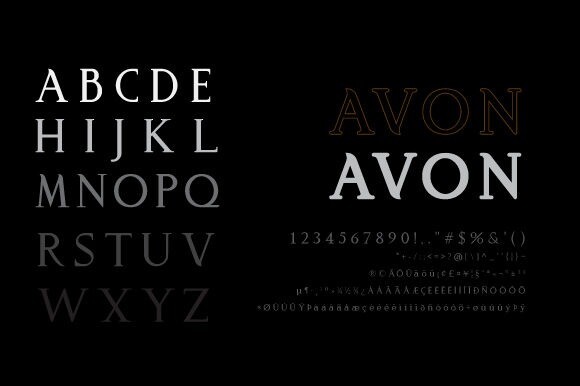
Avon Serif Font
Designer: VNM Creative Studio
Avon Serif Font is stand-out serif font family. It’s guaranteed to add an elegant and modern touch to a big variety of design projects.